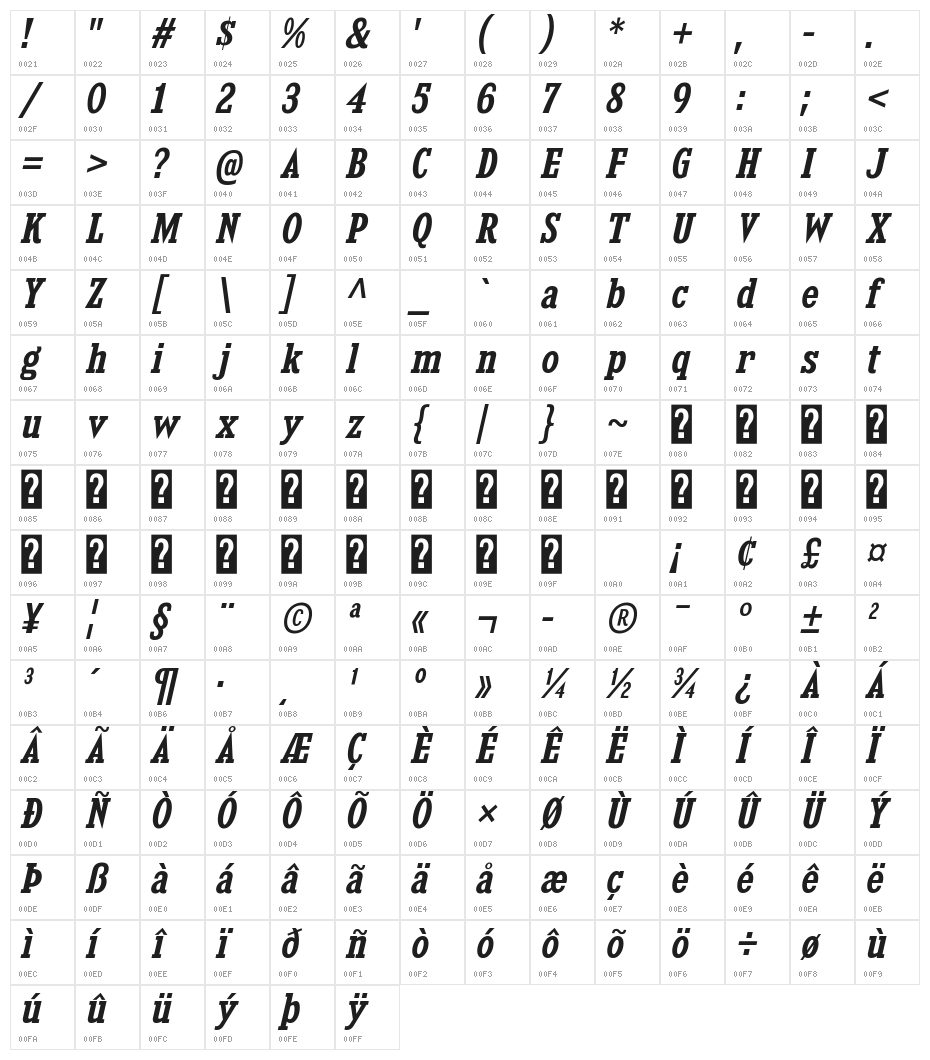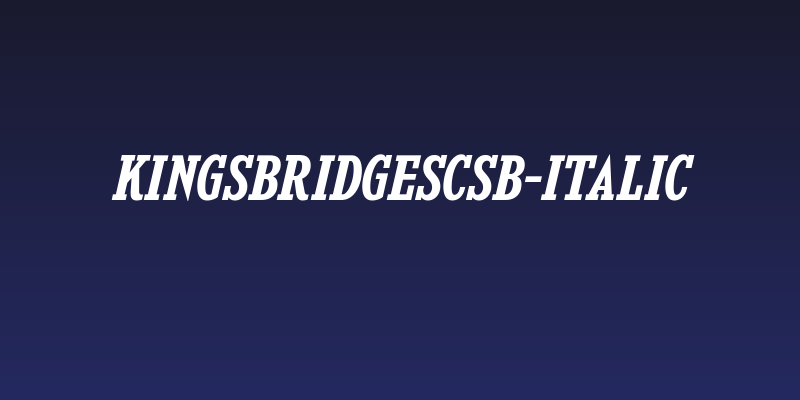
KingsbridgeScSb-Italic Font
KingsbridgeScSb-Italic Description
This font exhibits a strong and confident style with its bold, italicized characters. The serifs are pronounced, giving it a classic and authoritative appearance. The strokes are thick, contributing to a high contrast between the thick and thin lines, which enhances readability and impact. The italic slant adds a dynamic and forward-moving feel, making it suitable for attention-grabbing headlines or titles. The character spacing is normal, ensuring clarity and legibility across different sizes. The numerals and special characters maintain the same bold and italicized style, ensuring consistency throughout.
| Proposed Projects | Ideal for editorial headlines, book covers, branding materials, and formal invitations. |